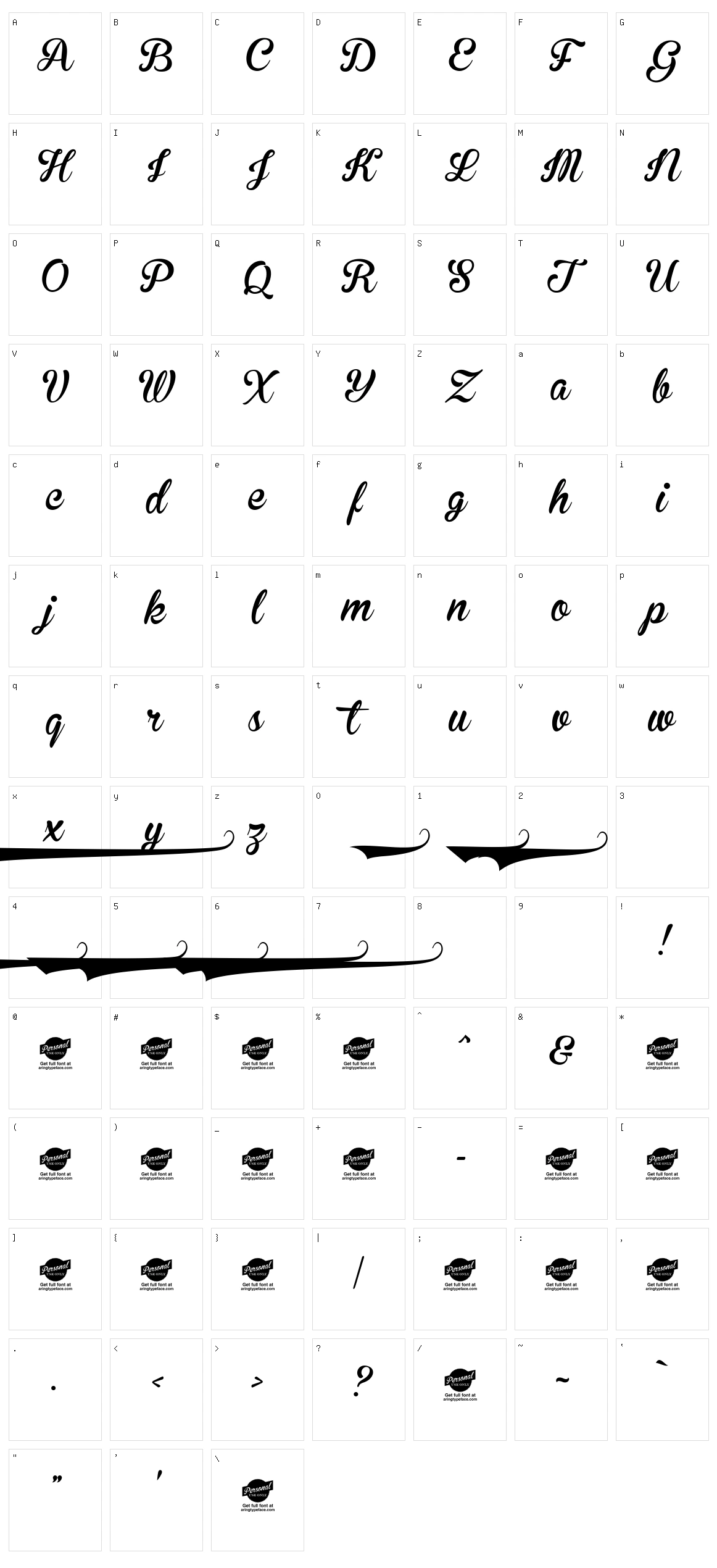
The free font Brannboll Ny is carefully designed by Mans Greback, showcasing a thoughtful balance of creativity and usability and falls under the Old-School font style. When you download the ZIP file, it contains only 328.07 KB of font files, making it lightweight and quick to download. Please review the license details below to understand permitted usage and distribution rights. If license information is not available, we recommend using this font for personal projects only or contacting the author directly for commercial usage permissions.